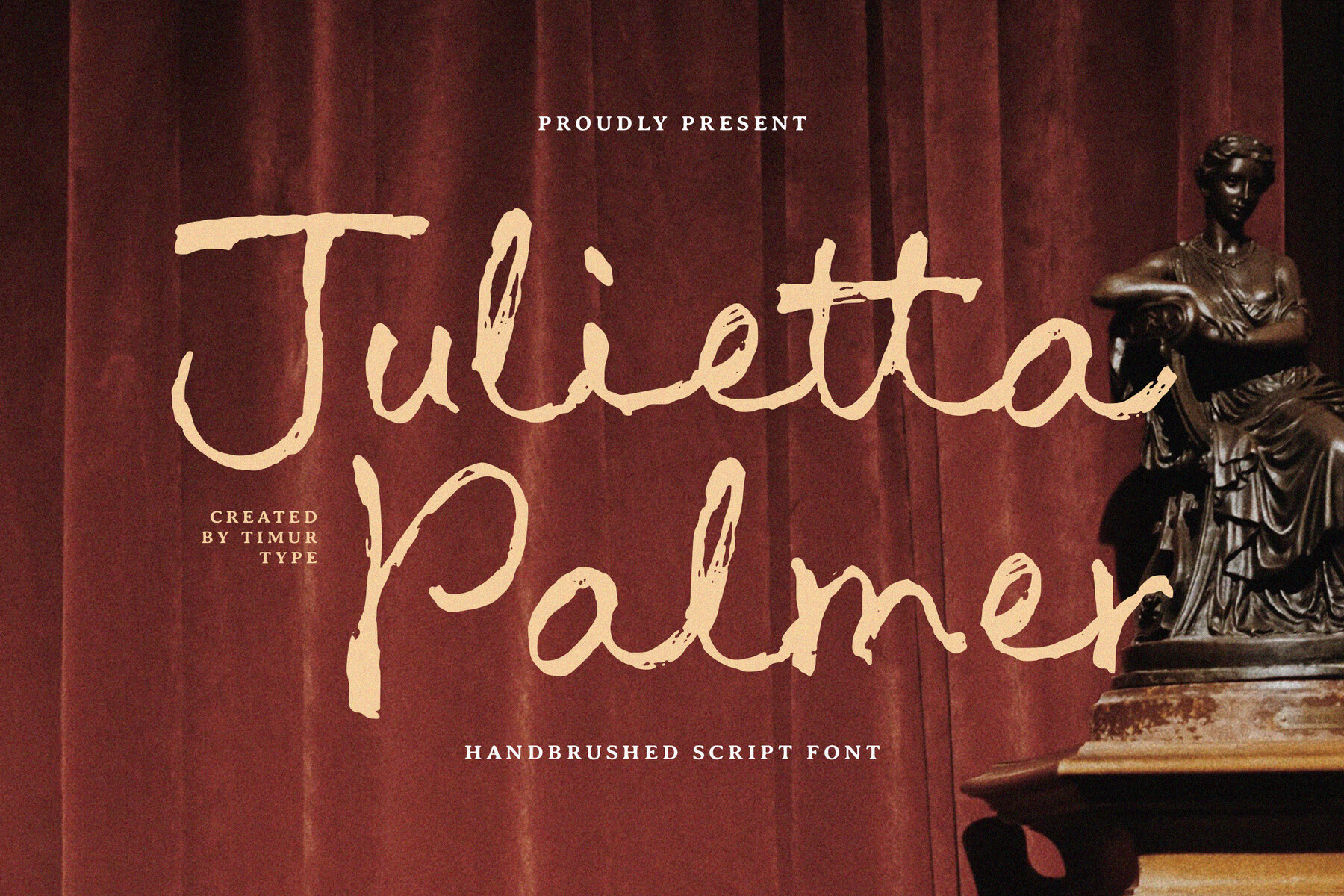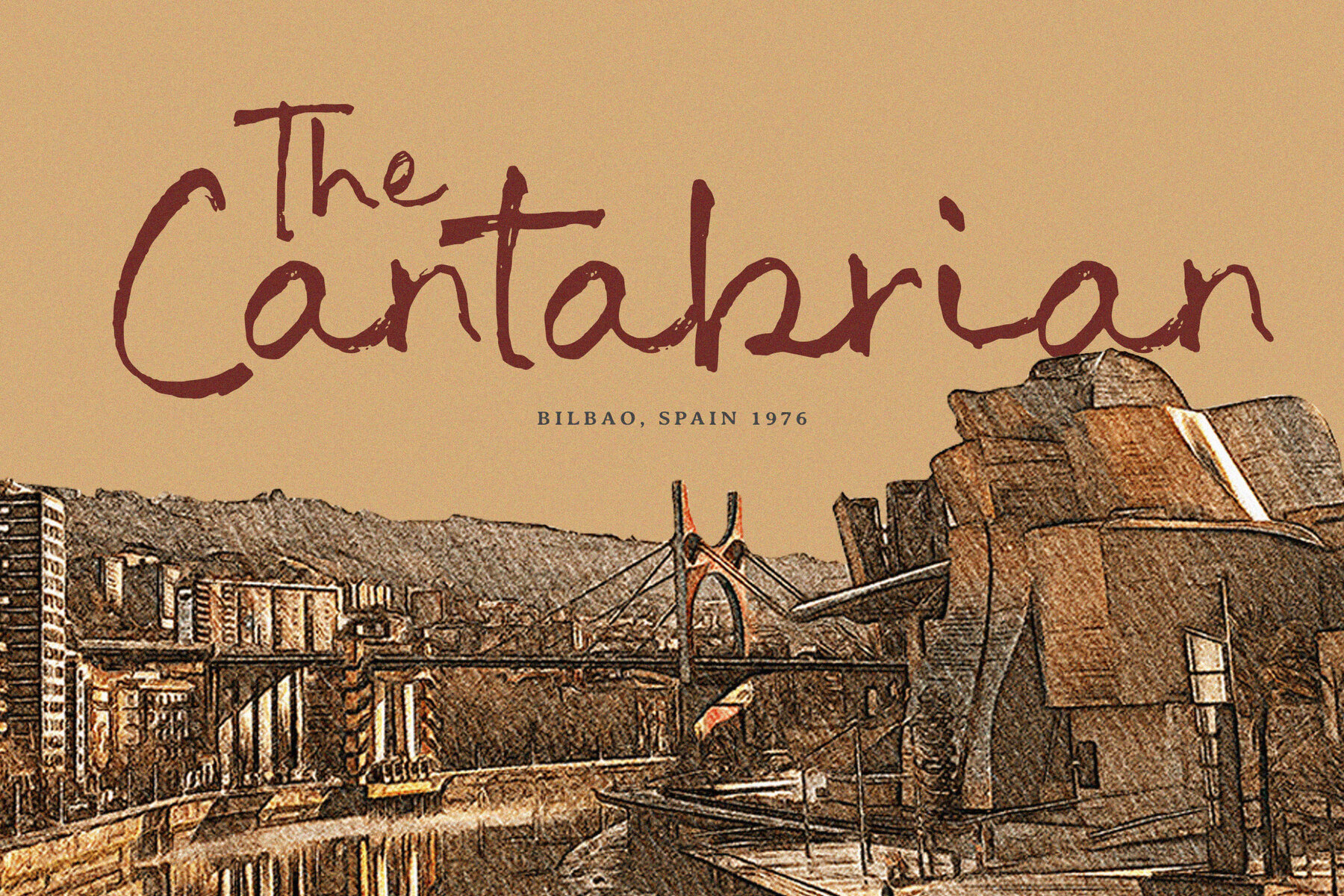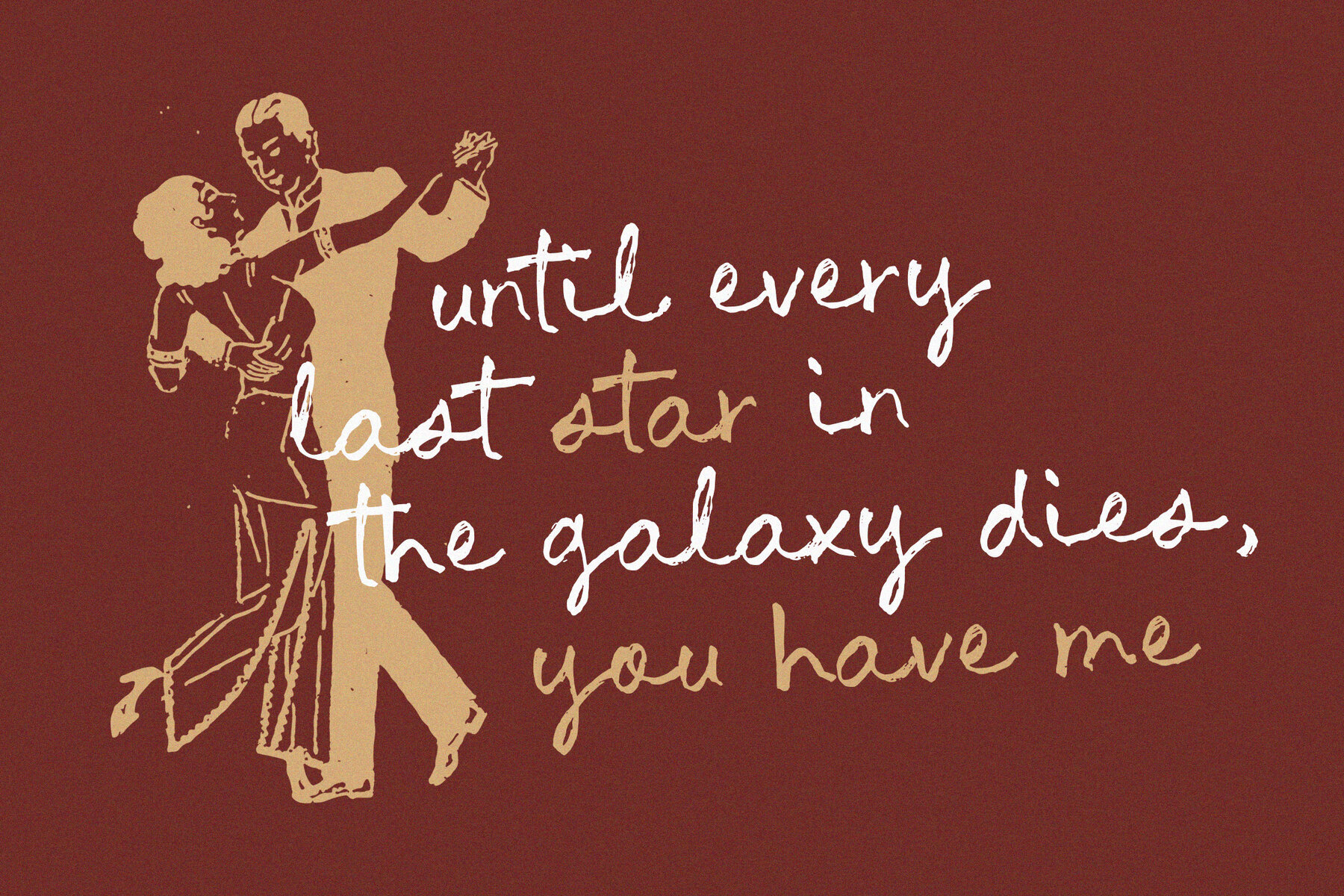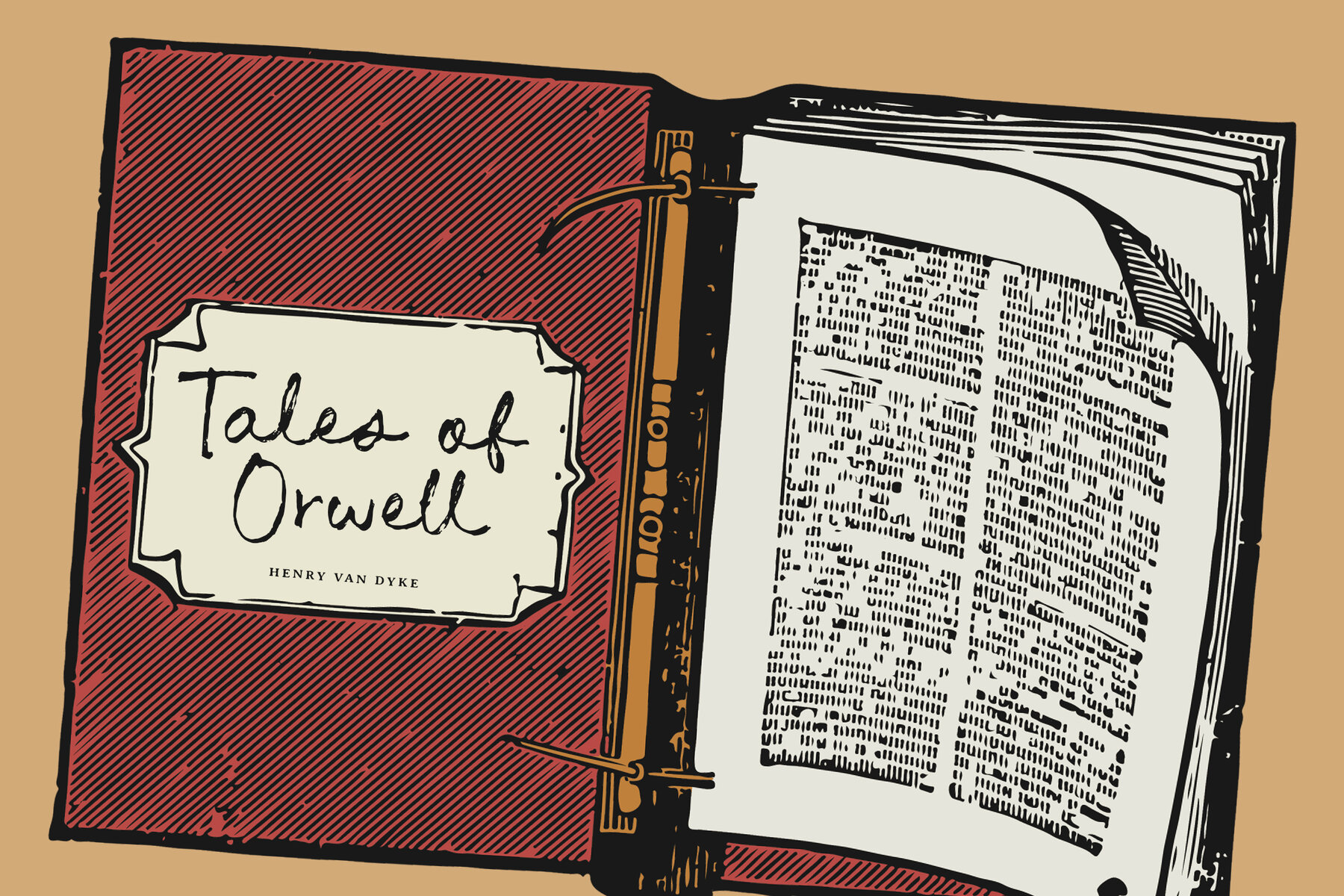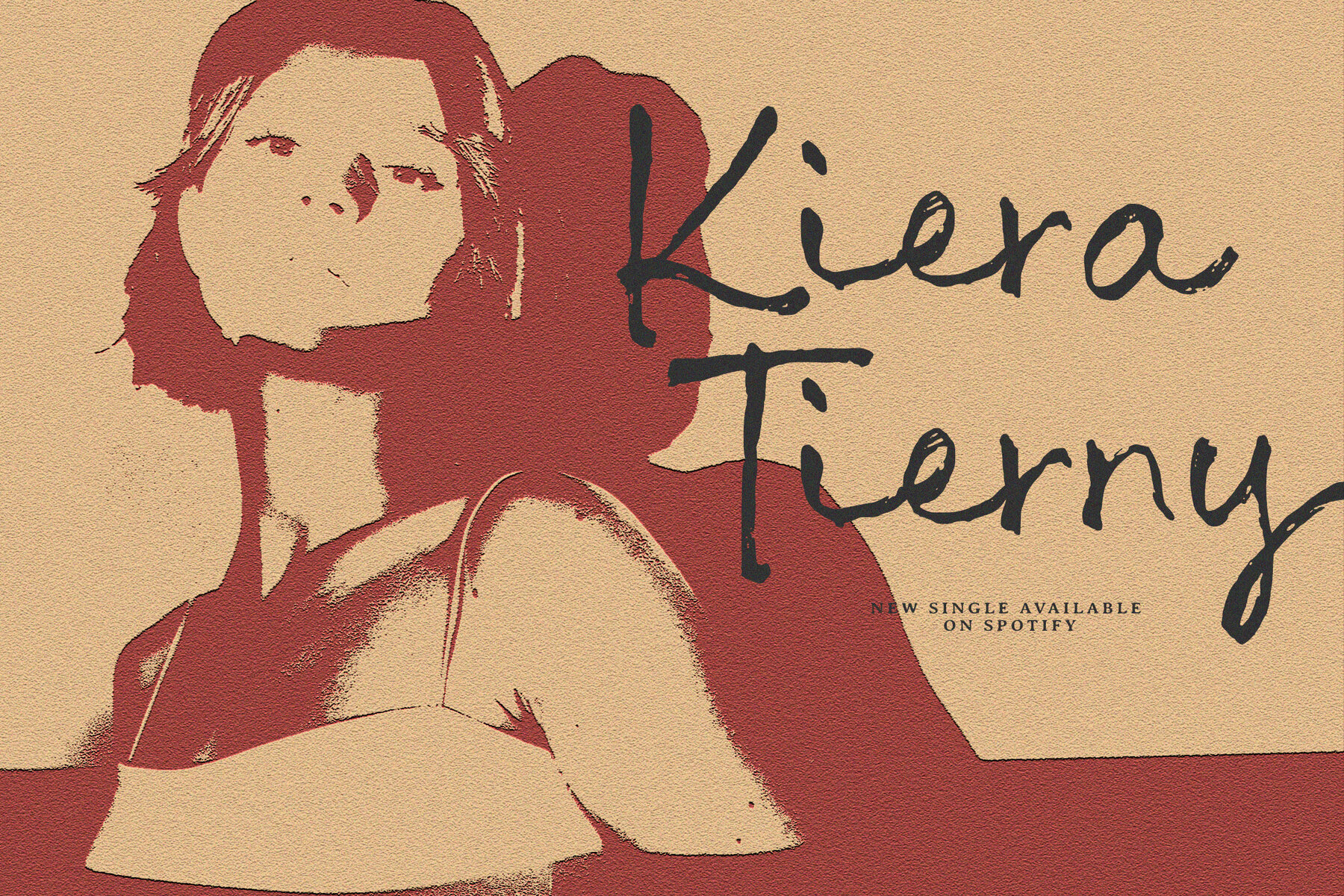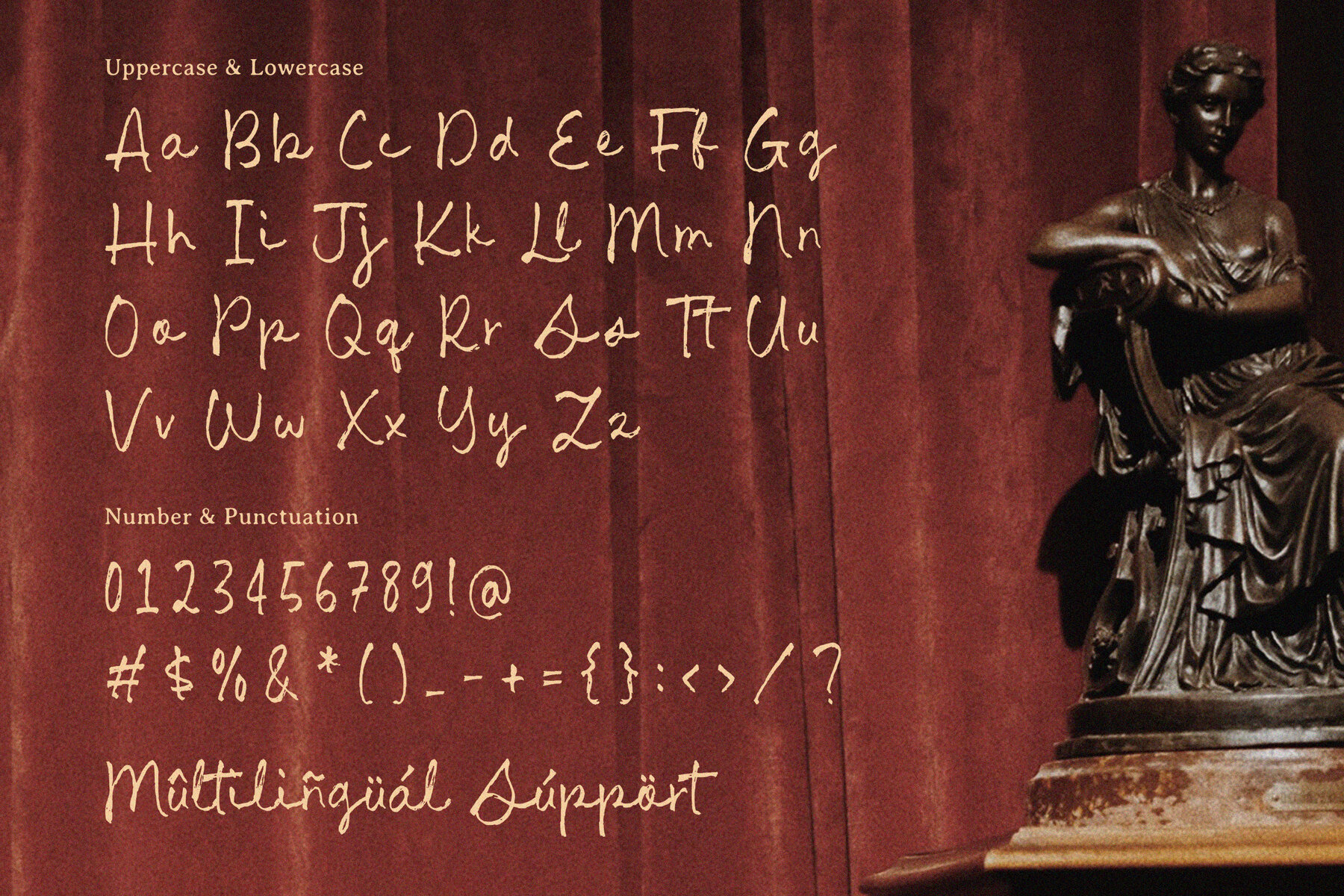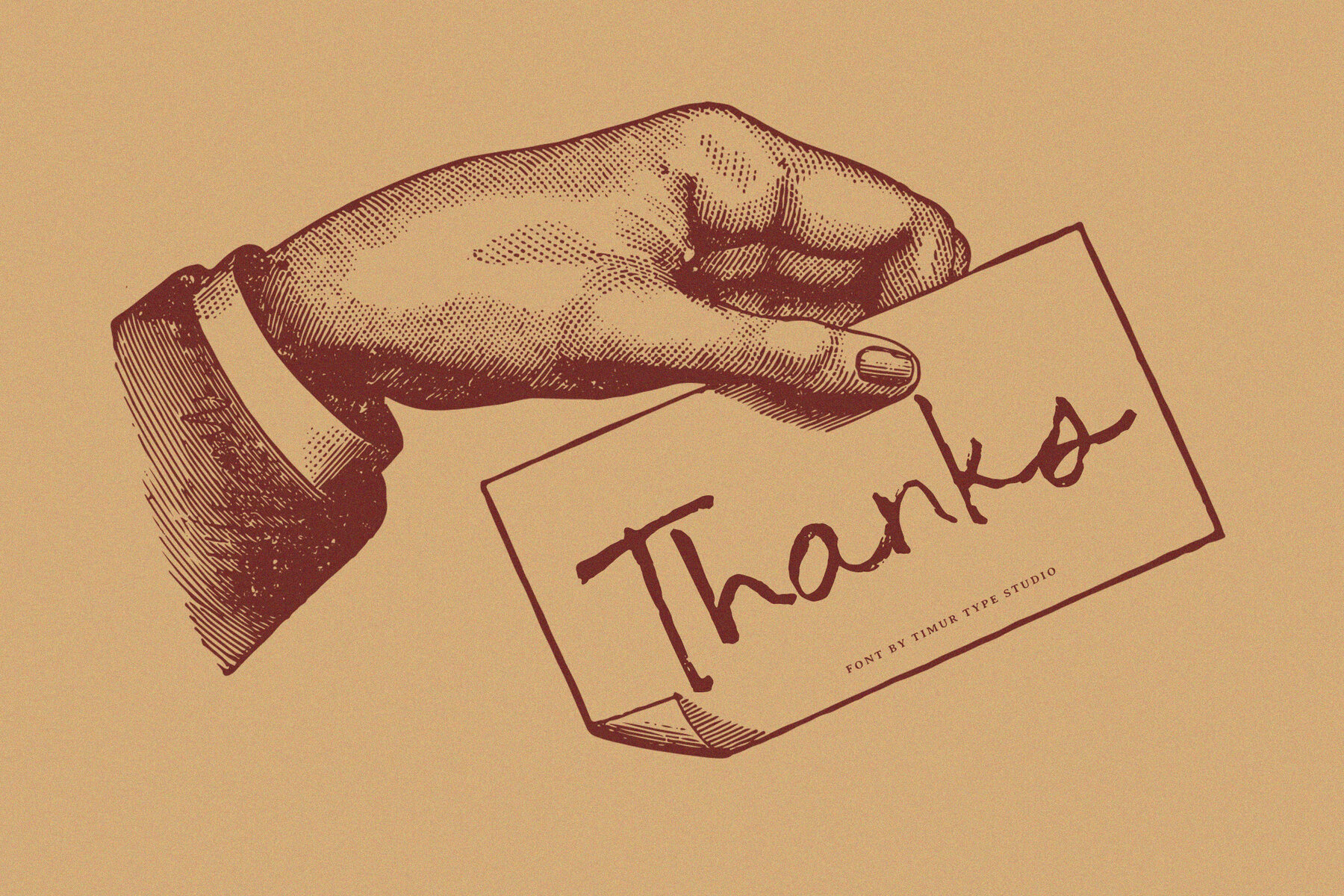
Julietta Palmer Font
Julietta Palmer
Julietta Palmer is a handbrushed script font that combines elegance and charm. Its fluid, sweeping strokes and playful character variations infuse a sense of sophistication into any design. This font is perfect for wedding invitations, branding, or creative projects that require a touch of handcrafted beauty. Its graceful style balances contemporary flair with classic beauty, making it an ideal choice for designs that need to feel both warm and inviting.
The essence of handwritten artistry is captured in Julietta Palmer, which excels in both headline and body text applications. The font's unique character creates an engaging visual appeal, adding personality and refinement to your designs. Its versatility makes it suitable for a wide range of design projects, ensuring your text stands out with a touch of artistic elegance. Embrace Julietta Palmer to bring a distinguished and elegant handwritten feel to your work.